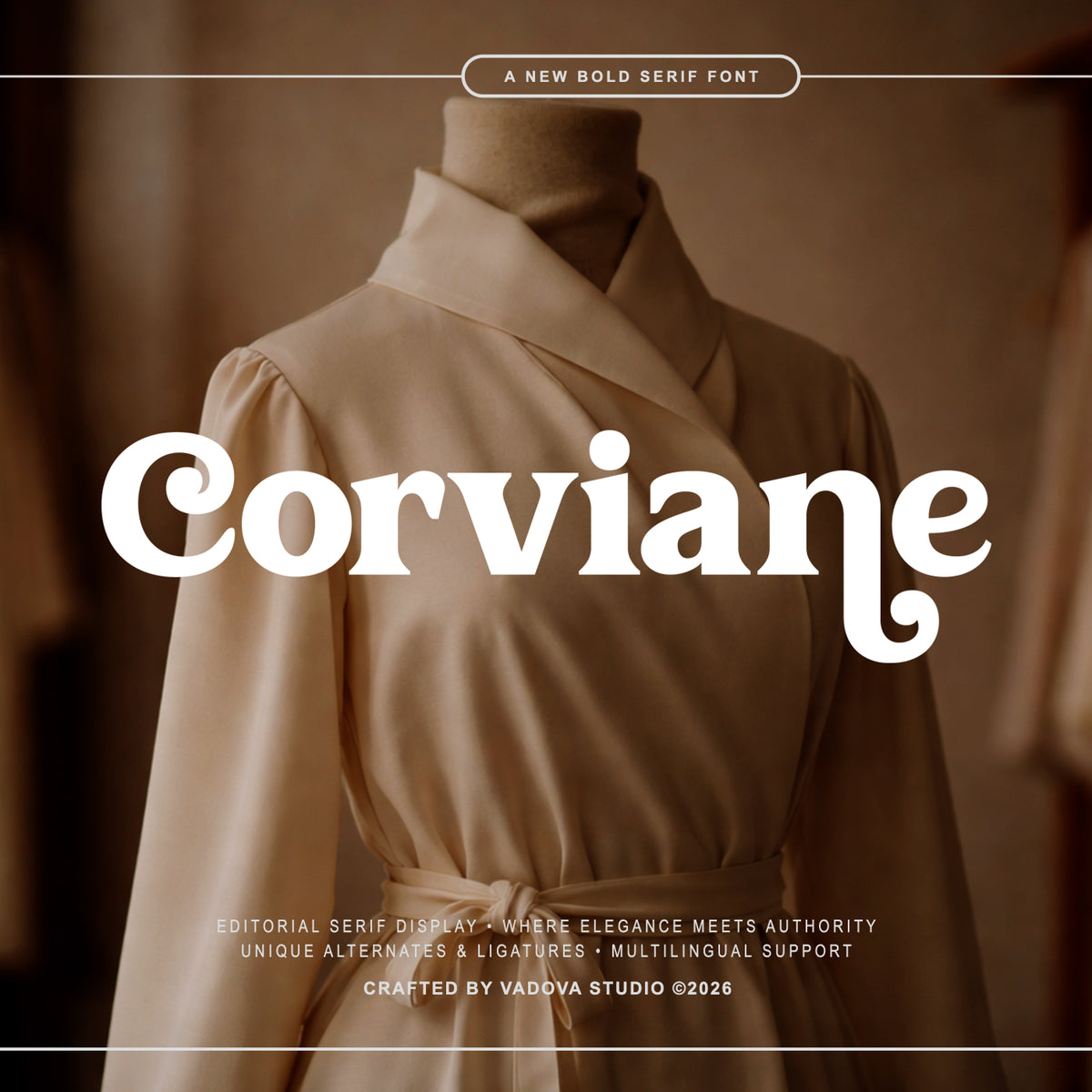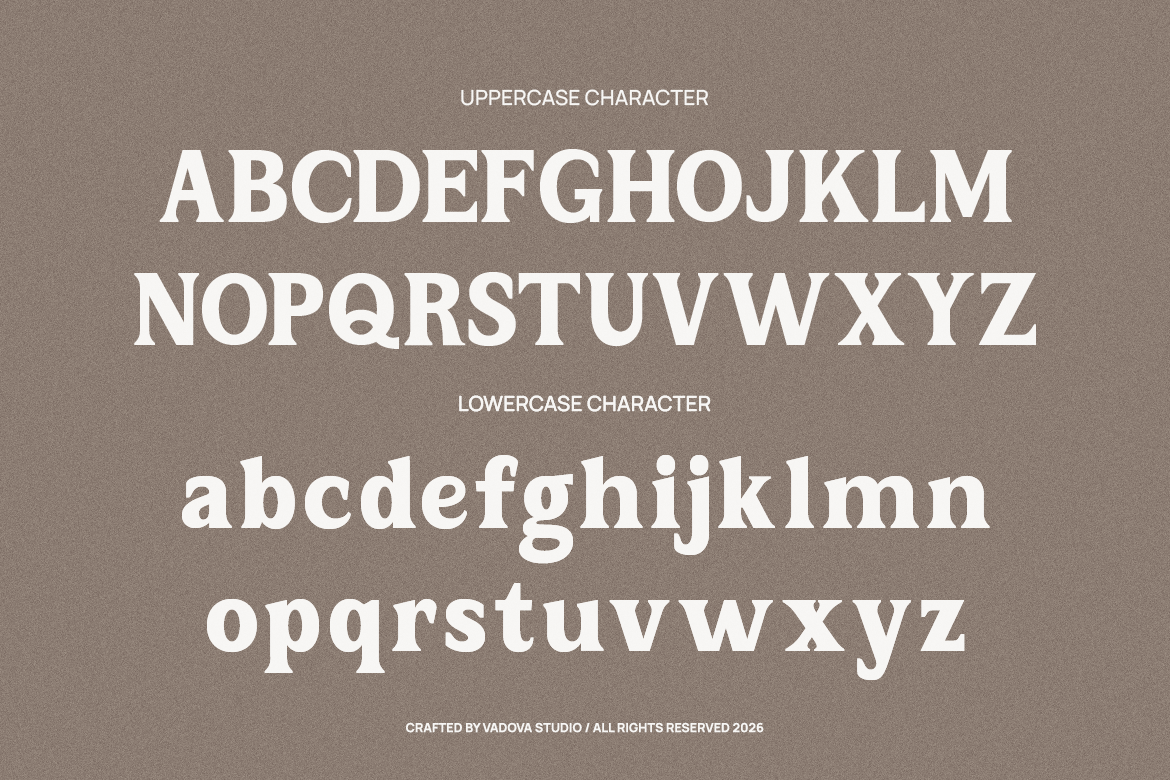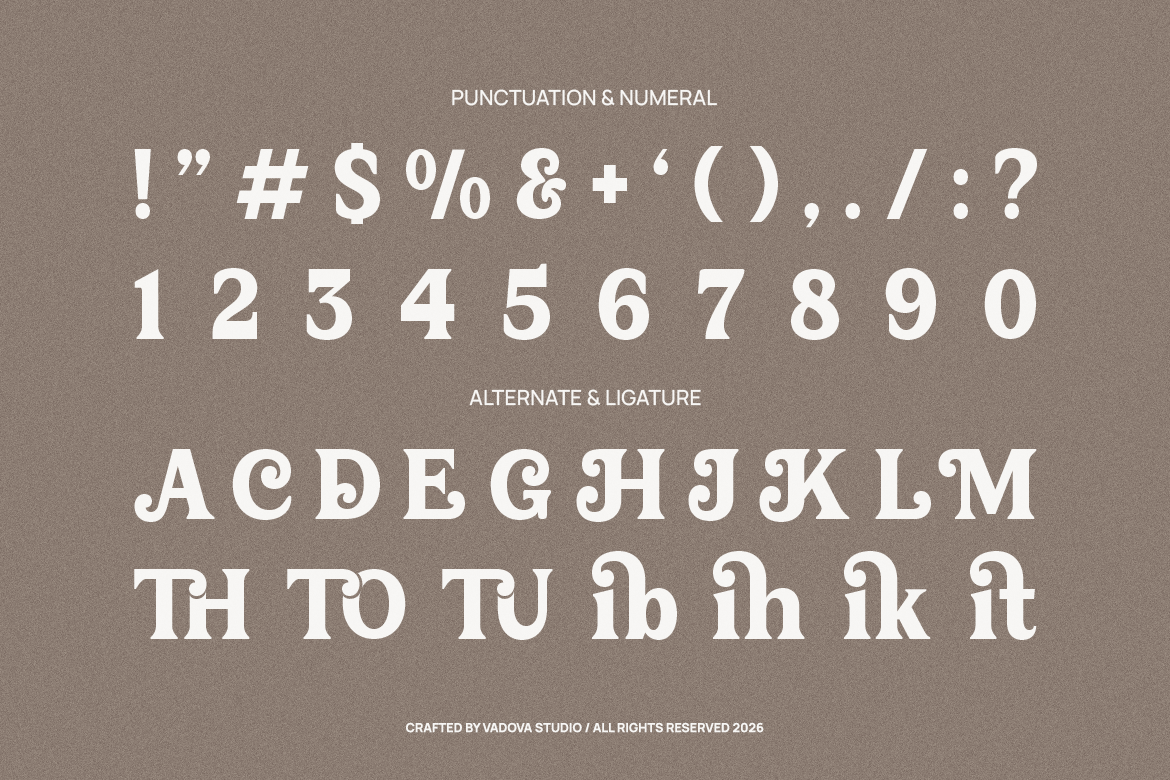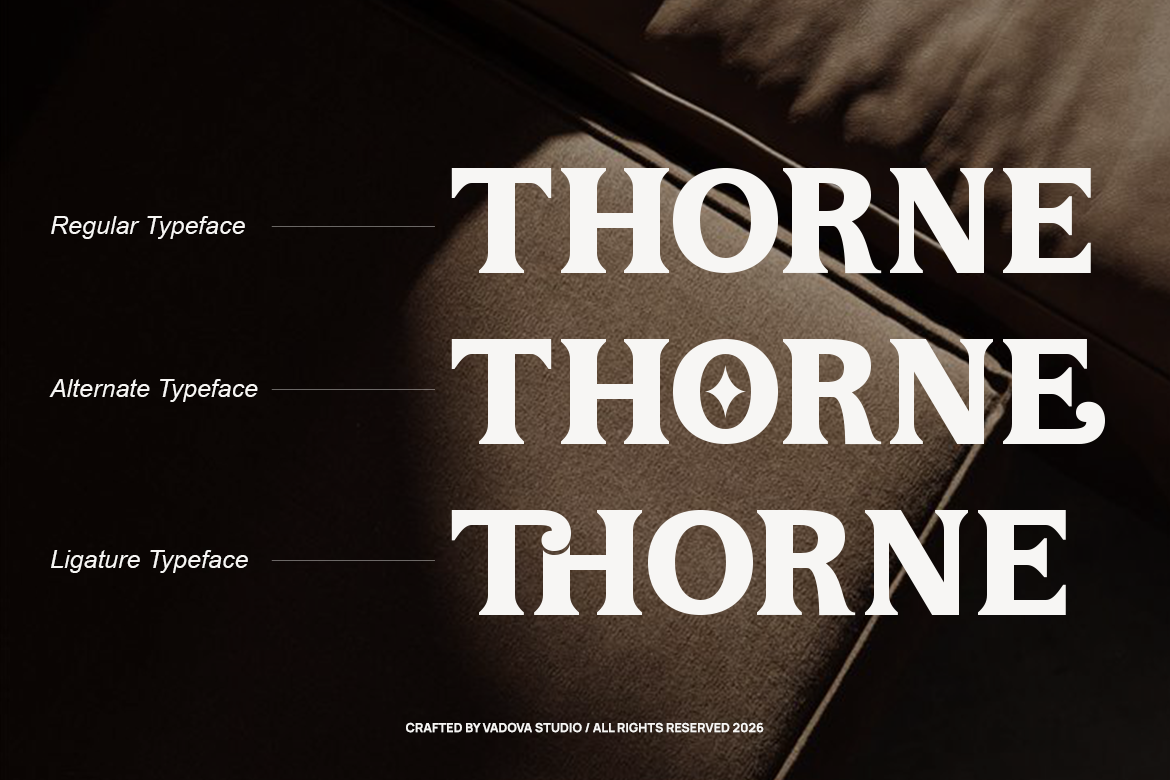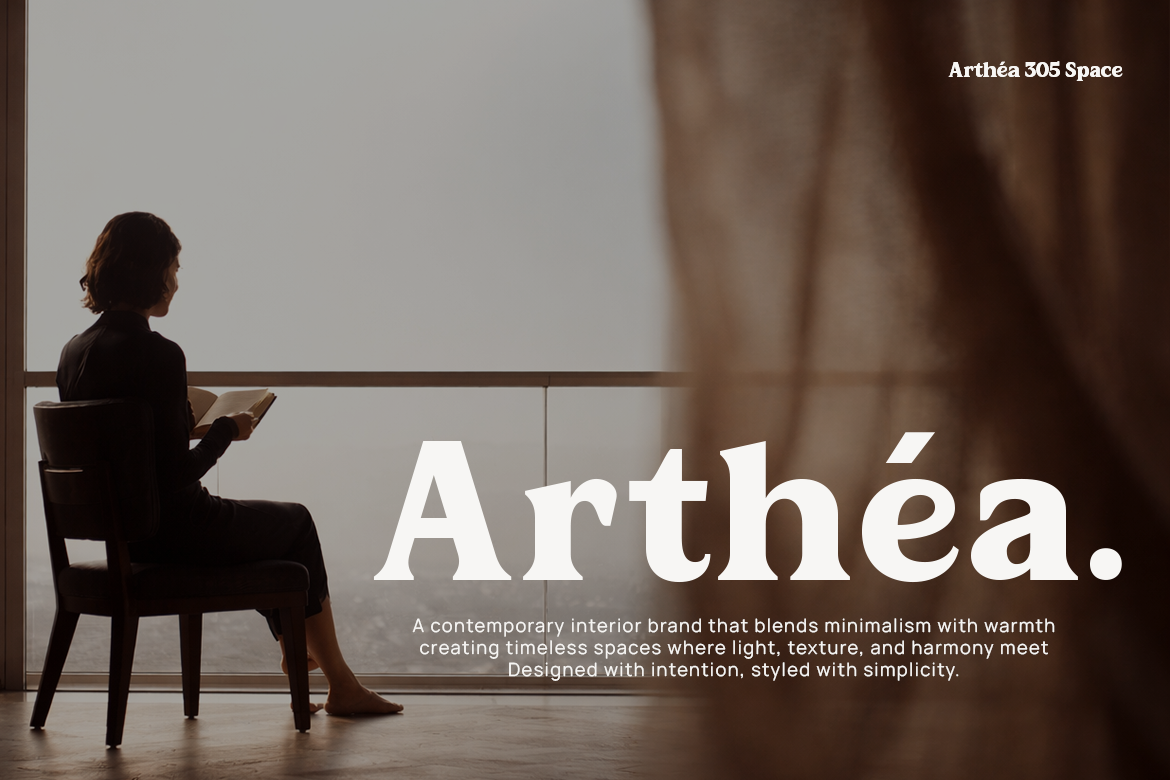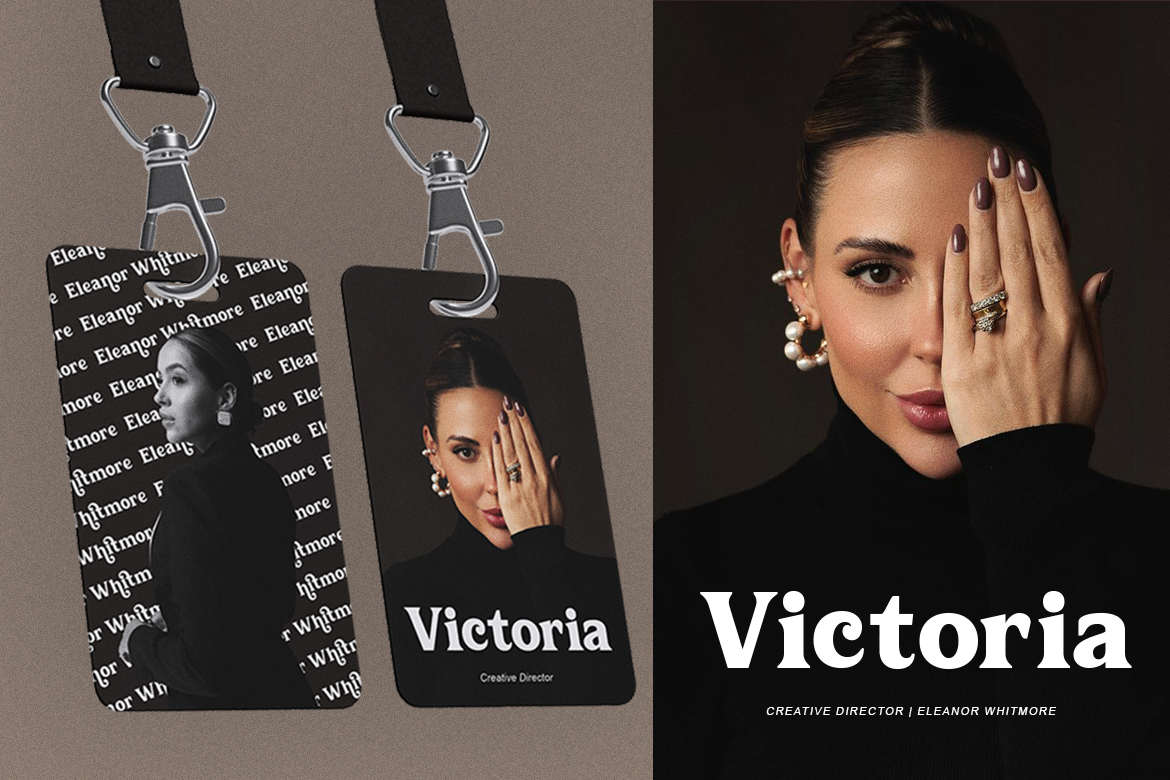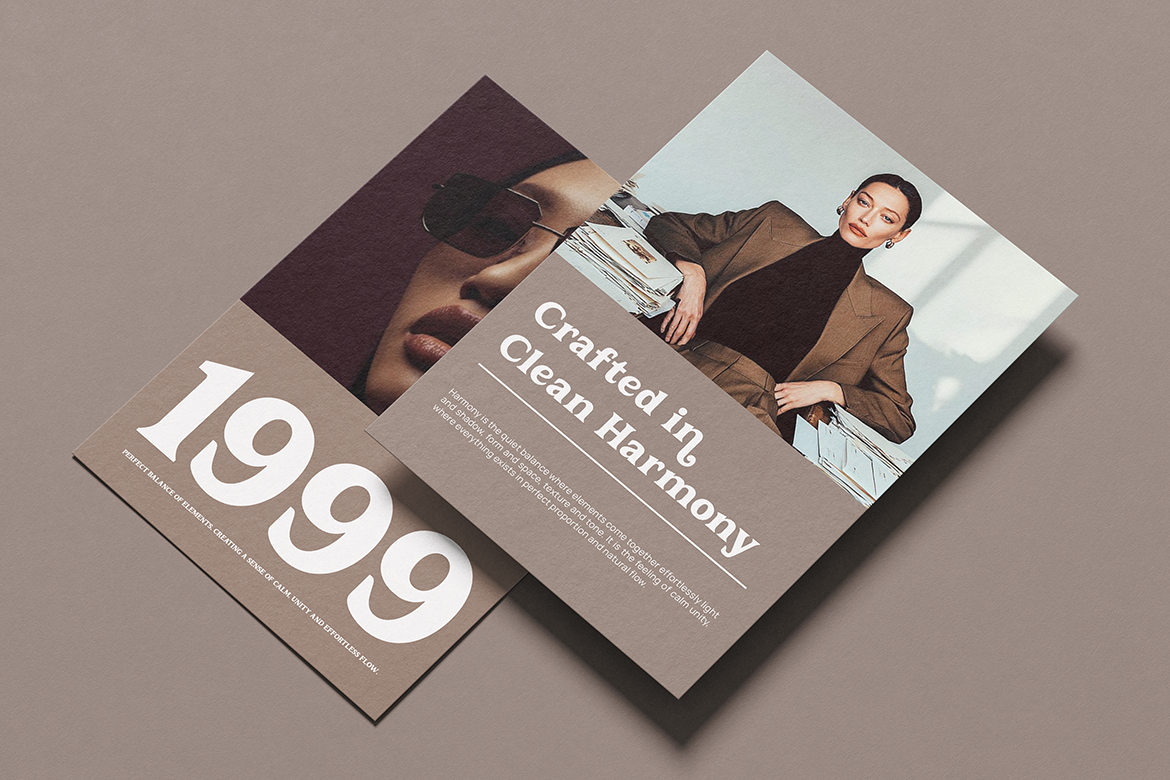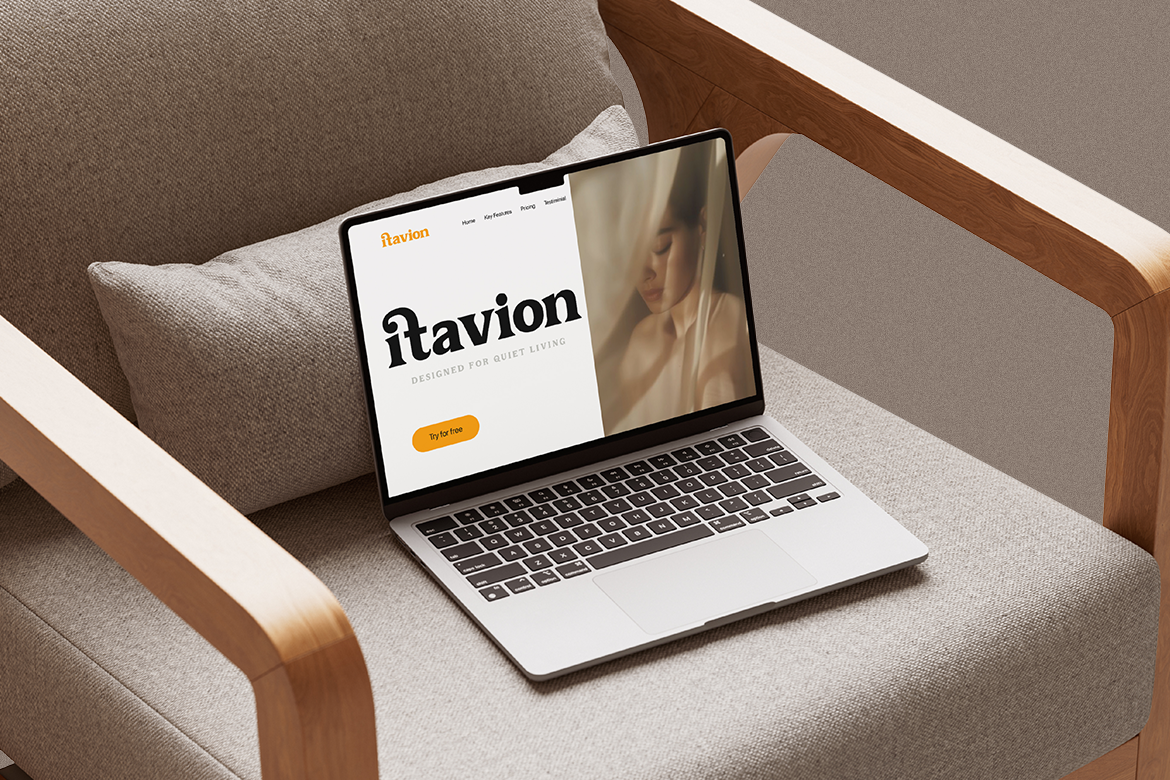
Corviane Editorial Serif Display Font
Corviane is a refined bold serif typeface crafted with expressive curves, confident stroke contrast, and graceful terminal details that create a sophisticated editorial presence. The package includes uppercase, lowercase, numerals, punctuation, stylistic alternates, and ligatures, supporting multilingual typography and versatile composition needs.
Relevance & Use Cases Corviane brings a confident editorial voice suited for fashion publications, luxury branding systems, boutique packaging, beauty campaigns, magazine headlines, lifestyle editorials, logo design, social media visuals, invitation layouts, and creative typography projects requiring a refined yet expressive serif presence.
Standard Ligatures & Alternate
Corviane Editorial Serif Display Font is a bold serif typeface with expressive curves, stroke contrast, and detailed terminals, available in TTF, OTF, and WOFF formats. It includes uppercase and lowercase characters, numerals, punctuation, stylistic alternates, ligatures, and multilingual support.